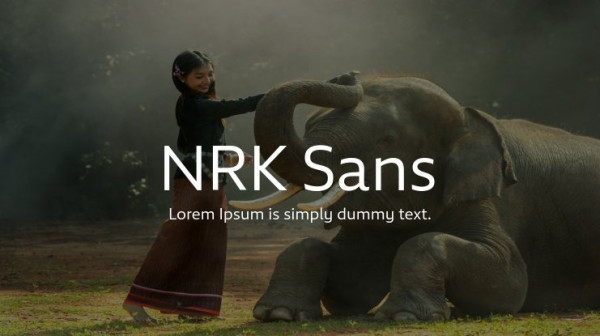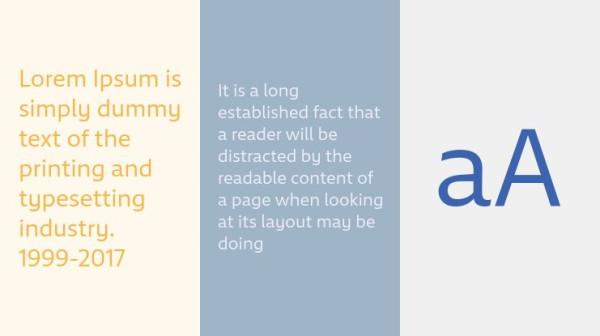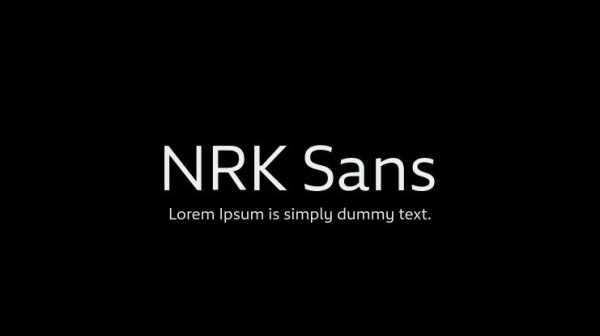
NRK Sans Font, is a sans serif stunning when combined or separately. This sans serif font style is legible and stunningly designed.
NRK Sans Font
| Designer Name: | Typotheque |
| Classification: | Sans Serif Fonts, Style / Aesthetic Fonts |